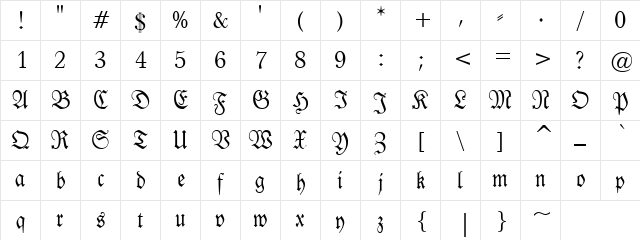
Fallen Window Regular Free Font
Fallen Window Regular
Design Context for Fallen Window
Fallen Window is a composed and adaptable typeface that performs quietly and consistently across a wide range of design contexts.